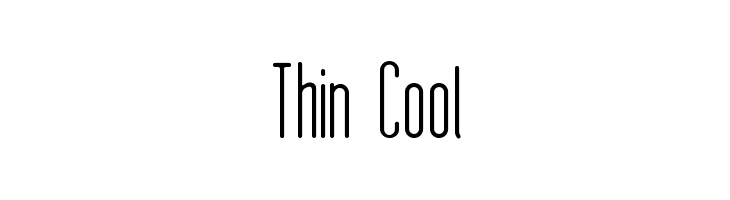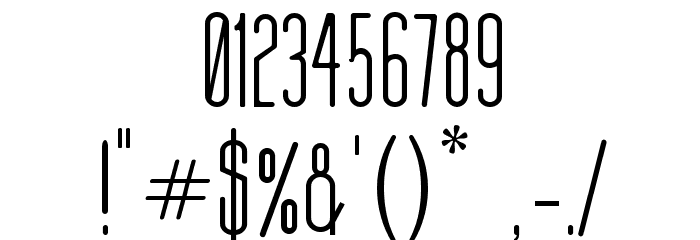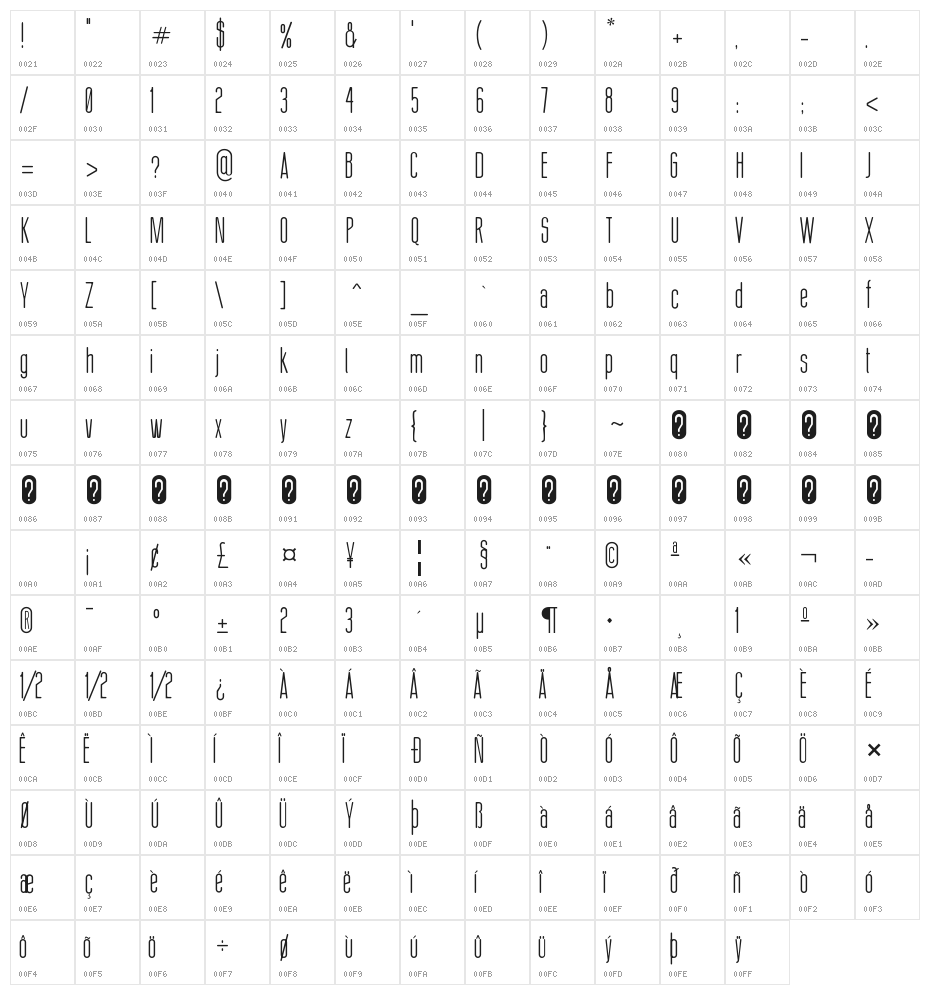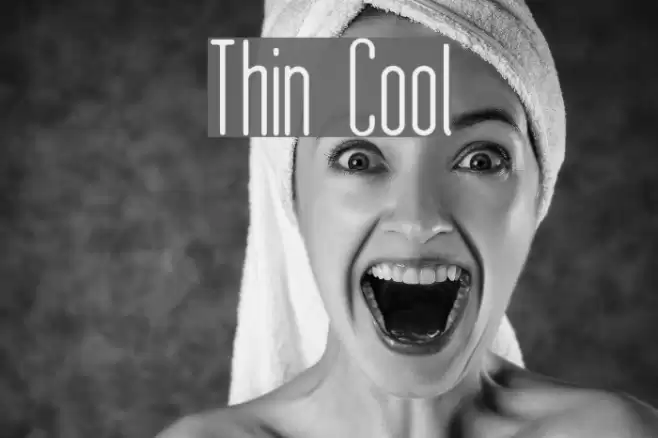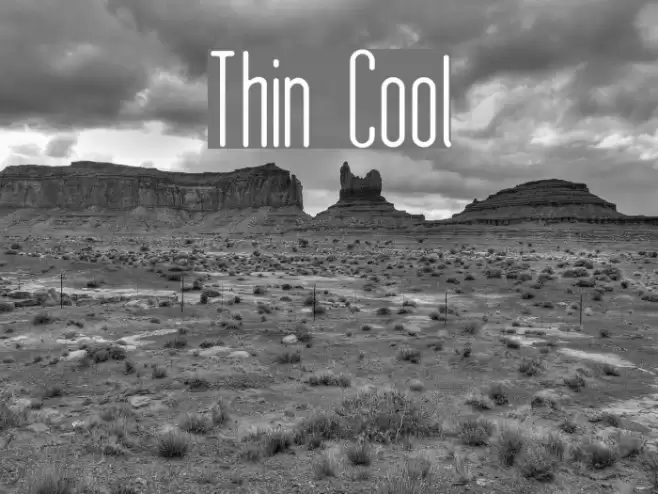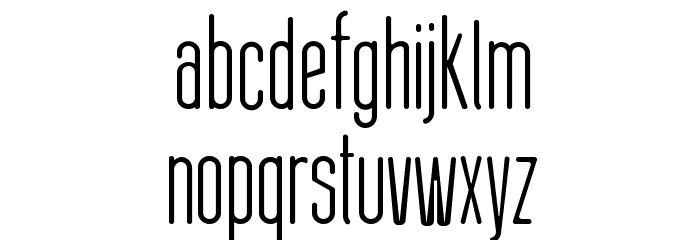
Thin Cool Font
Thin Cool Description
This font features a sleek and modern design with elongated, narrow characters that give it a sophisticated and contemporary appearance. The uppercase and lowercase letters maintain a consistent height, contributing to a uniform and clean look. The numerals are distinct and easy to read, while the special characters blend seamlessly with the overall style. The thin strokes and minimalistic design make it ideal for projects that require a touch of elegance and simplicity. Its versatility allows it to be used in various design contexts, from digital media to print.
| Use Case | Headlines, Logos, Digital media |
| Proposed Projects | Ideal for branding, editorial design, digital media, and minimalist print projects. |